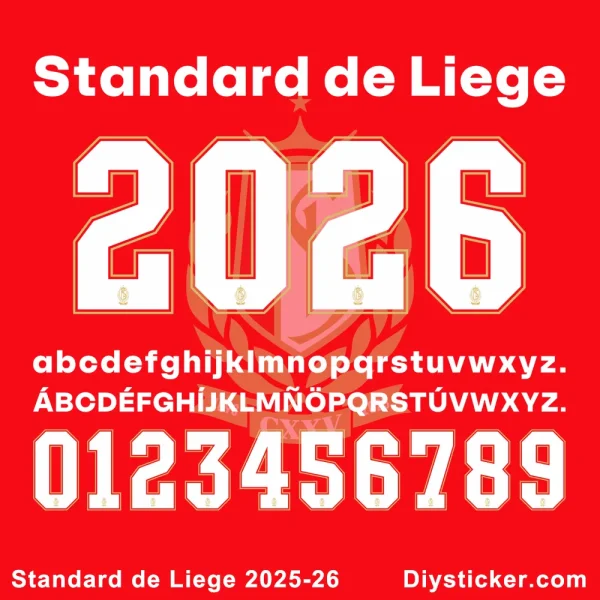
Design with the passion of Standard de Liege using the official 2025-26 Season Font. This professionally crafted typeface includes both uppercase and lowercase characters, replicating the club’s distinctive lettering for authentic jerseys, fan merchandise, and digital content.